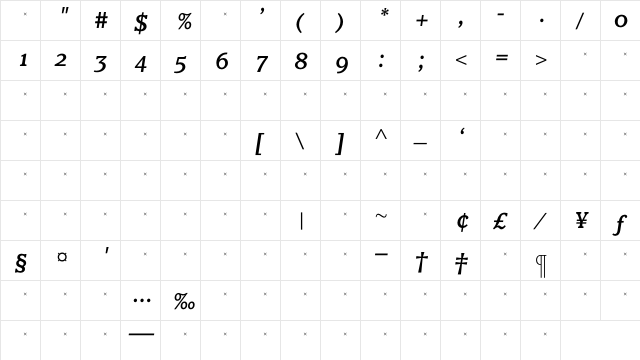
ClaremontMedItalOSTab Regular
Design Context for ClaremontMedItalOSTab Typeface
ClaremontMedItalOSTab takes a measured approach to typography — its balanced proportions and neutral character make it a reliable workhorse for both digital and print work.